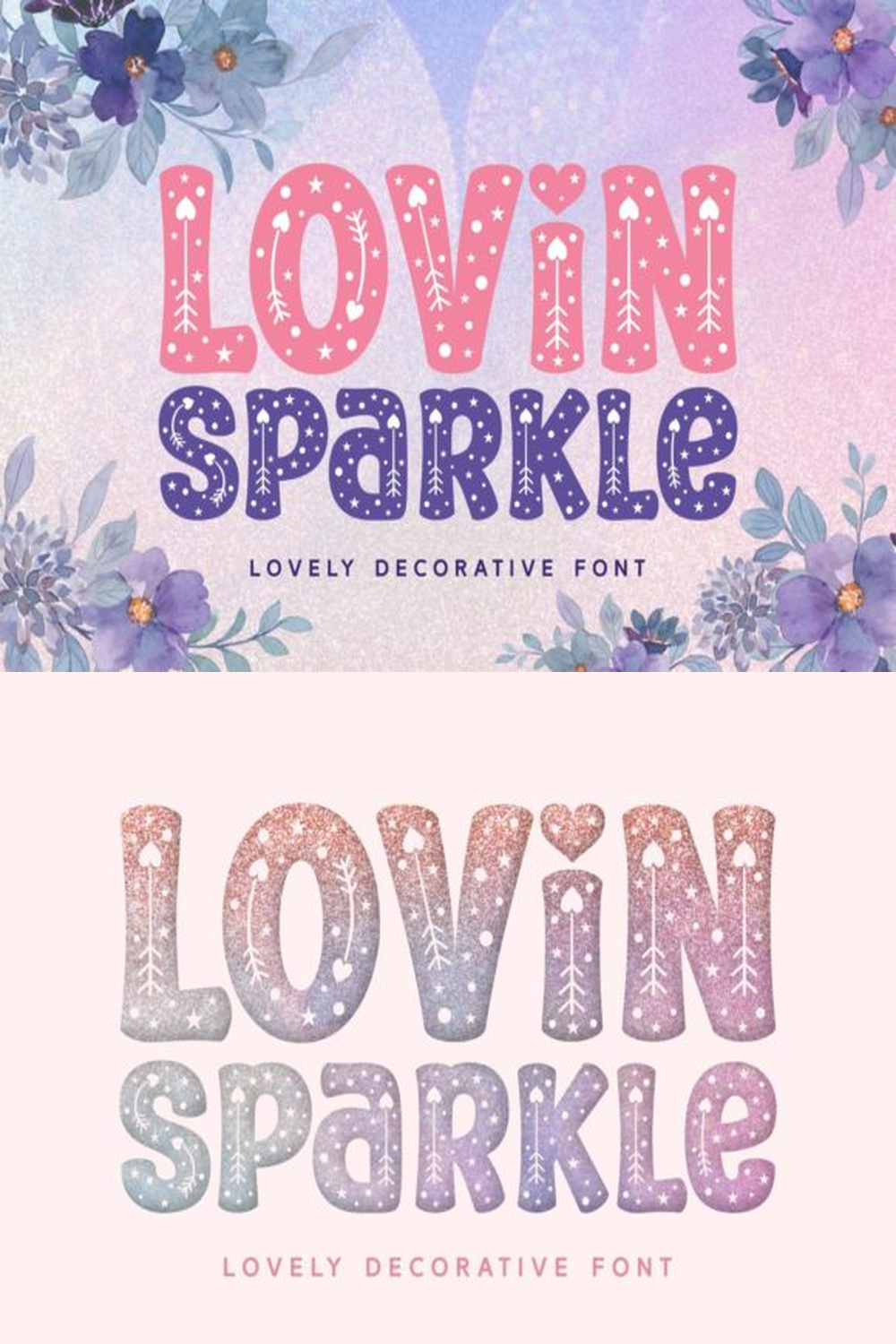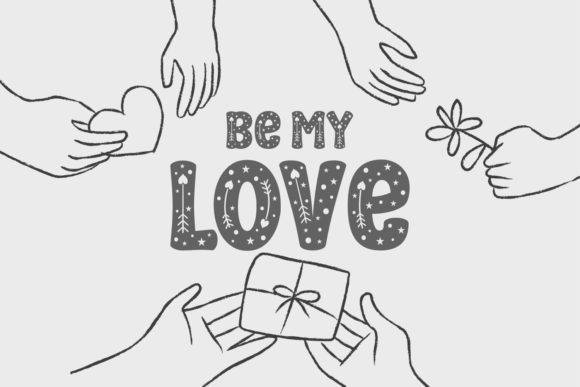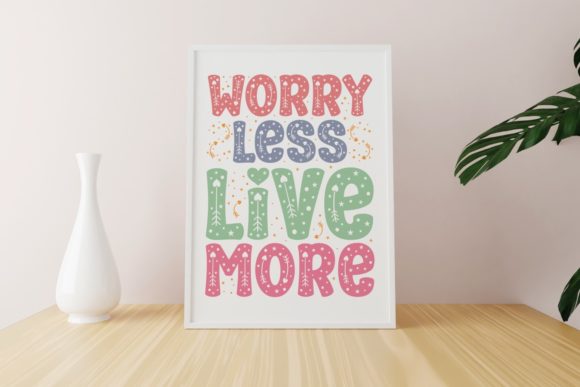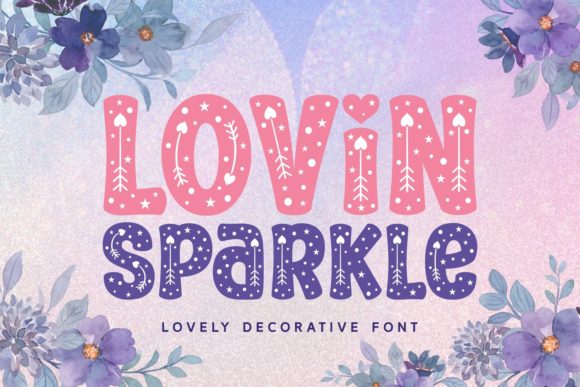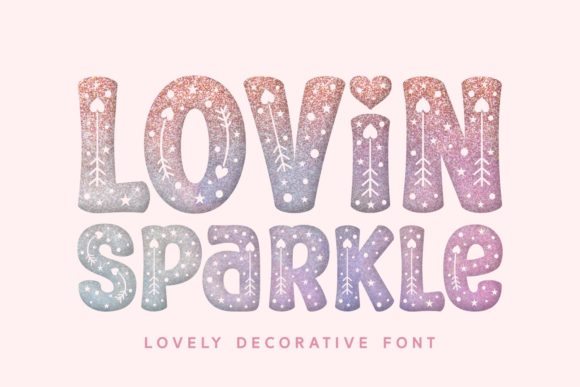
Lovin Sparkle Font
About the Lovin Sparkle Font
Introducing the Lovin Sparkle Font, a beautifully crafted typeface designed to elevate your creative projects. The Lovin Sparkle font will be sure to enhance your next craft or design project from Valentine’s Day and beyond! This font features unique design elements in each glyph simulating a sparkle effect.
Lovin Sparkle’s playful, slightly quirky personality makes it ideal for headlines, short text blocks on invitations or greeting cards, and packaging for products targeting a young, fun-loving demographic. It works exceptionally well in projects requiring a touch of whimsy, such as children’s book titles or branding for confectionery. However, its decorative nature makes it unsuitable for body text or UI elements where legibility is paramount. Extended use could quickly become overwhelming and difficult to read.
Pairing Lovin Sparkle with a clean sans-serif like Open Sans for body text creates a strong visual contrast and ensures readability. For a more sophisticated look, consider pairing it with a classic serif like Garamond for a touch of elegance, balancing its playful energy with refined structure. Avoid pairing it with other highly decorative fonts, as this risks visual overload.
The font’s overall aesthetic is best described as cheerful and celebratory. Its sparkle effect adds a distinct festive feel, making it a perfect choice for projects celebrating romance, holidays, or joyful occasions. Using it sparingly to highlight key elements is key to maximizing its impact.
Lovin Sparkle Font Usage Examples
Lovin Sparkle Font Example